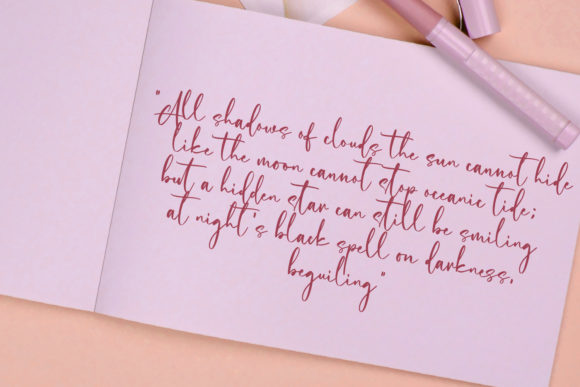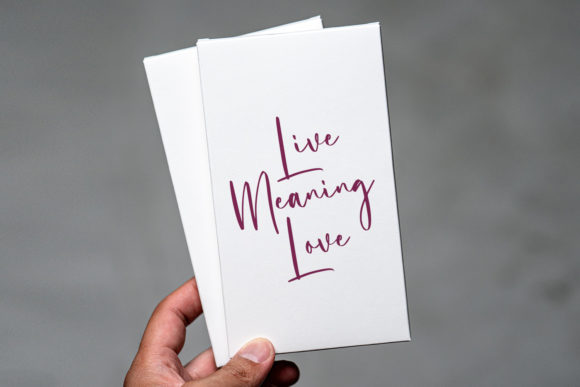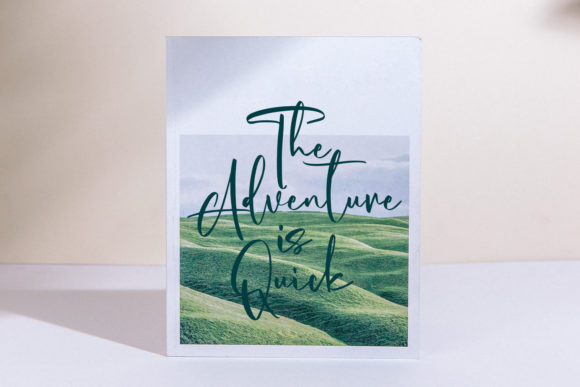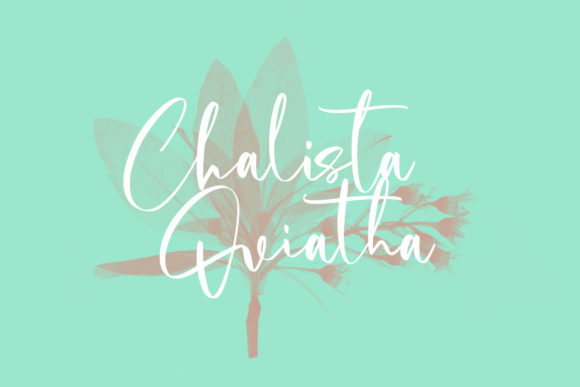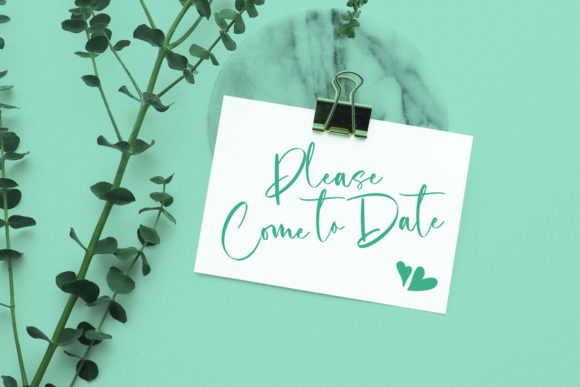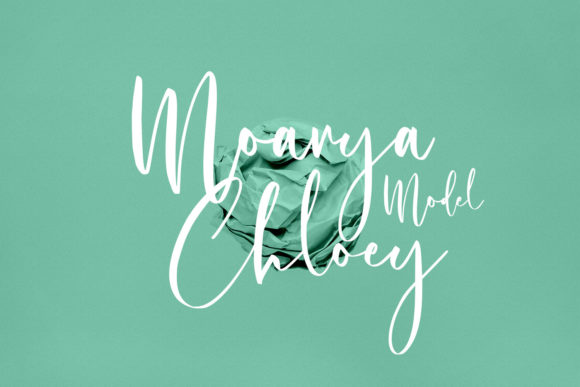
Introducing Cholasette Script Font: Elevate Your Designs with Elegance and Romance
In the world of typography, script fonts hold a special place for their ability to add a touch of elegance, sophistication, and romance to any design project. Among these, the Cholasette Script Font stands out as a casual yet stylish choice, versatile enough to be used across a wide range of applications. From greeting cards to headlines, this beautiful script font is guaranteed to infuse your next project with a romantic feel that captivates your audience.
What Makes Cholasette Script Font Special?
Cholasette Script is not just another script font; it’s a design element that can transform your project. Its casual and stylish appearance makes it perfect for designers and crafters looking to add a personal touch to their work. Whether you’re creating wedding invitations, greeting cards, or blog headers, Cholasette Script brings a level of sophistication and charm that’s hard to achieve with standard fonts.
One of the key advantages of the Cholasette Script Font is its versatility. It’s designed to work well in various contexts, from digital platforms to print media. Here are some of the areas where Cholasette Script truly shines:
- Greeting Cards: Add a personal and romantic touch to your greeting cards, making them memorable for the recipient.
- Headlines and Titles: Use Cholasette Script to create eye-catching headlines and titles for blogs, articles, and social media posts that stand out.
- Wedding and Event Invitations: The font’s elegant and romantic feel makes it perfect for wedding invitations, save-the-date cards, and other event announcements.
- Branding and Packaging: For businesses looking to add a touch of elegance to their brand identity, Cholasette Script can be a great choice for logos, packaging, and promotional materials.
Why Choose Cholasette Script Font?
Choosing the right font for your project can be daunting, given the numerous options available. Here are a few reasons why Cholasette Script should be at the top of your list:
- Romantic and Elegant Feel: The font exudes a sense of romance and elegance, making it perfect for projects that require a touch of sophistication.
- Easy to Read: Despite its script nature, Cholasette Script is designed to be clear and readable, even at smaller sizes.
- Highly Versatile: Its adaptability across different mediums and design applications makes it a valuable addition to any designer’s toolkit.
- Unique and Memorable: With Cholasette Script, you can create designs that are not only beautiful but also unique and memorable.
How to Use Cholasette Script Font Effectively
To make the most of Cholasette Script Font, consider the following tips:
- Pair with Complementary Fonts: Combine Cholasette Script with sans-serif or serif fonts to create a balanced and visually appealing design.
- Use for Headlines and Accents: Apply the font to headlines, titles, and key accents to draw attention and add a touch of elegance.
- Experiment with Colors and Textures: Don’t be afraid to experiment with different colors and textures to enhance the romantic and elegant feel of the font.
Cholasette Script Font is a beautiful, versatile, and elegant script font that can elevate your design projects with its romantic feel. Whether you’re a designer, crafter, or DIY enthusiast, this font offers a wide range of creative possibilities. By incorporating Cholasette Script into your projects, you can create stunning and memorable designs that leave a lasting impression on your audience.